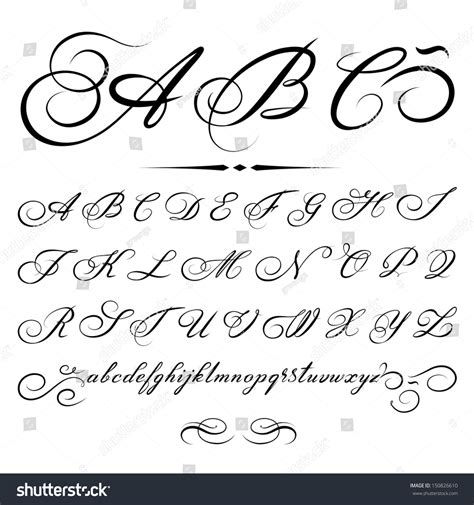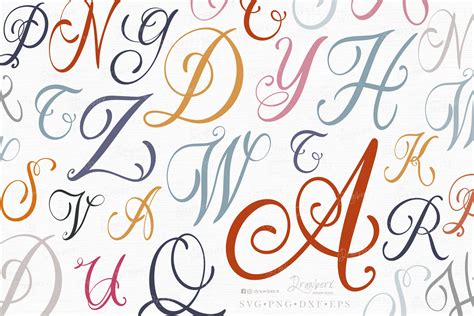
Embarking on a journey to master the art of handwriting can be both rewarding and enjoyable. One of the most elegant and timeless styles is the Fancy Cursive Alphabet. This script is not just about writing; it's about expressing oneself with grace and sophistication. Whether you're a calligraphy enthusiast or someone looking to add a touch of elegance to your everyday writing, learning the Fancy Cursive Alphabet can be a fulfilling experience.
Understanding the Fancy Cursive Alphabet
The Fancy Cursive Alphabet is characterized by its flowing, interconnected letters and decorative flourishes. Unlike standard cursive, which is often taught in schools for its practicality, the Fancy Cursive Alphabet is more about aesthetics and personal expression. It combines elements of traditional cursive with artistic embellishments, making it a favorite among calligraphers and artists.
To get started with the Fancy Cursive Alphabet, it's essential to understand its key features:
• Flowing Lines: The letters are connected in a smooth, continuous motion, giving the writing a fluid appearance.
• Decorative Elements: Flourishes and loops are added to enhance the visual appeal of the script.
• Varied Letterforms: Each letter can have multiple variations, allowing for a high degree of personalization.
Tools and Materials for Fancy Cursive Alphabet
Before diving into the Fancy Cursive Alphabet, gather the right tools and materials. Having the correct equipment can significantly enhance your learning experience and the quality of your writing.
Here are some essential tools and materials:
• Pens: Use a fountain pen, dip pen, or a calligraphy pen with a flexible nib for better control and flow.
• Ink: Choose high-quality ink that flows smoothly and dries quickly to prevent smudging.
• Paper: Opt for smooth, high-quality paper that allows the ink to glide effortlessly.
• Guidelines: Use a ruler or a lightbox to create guidelines for consistent letter height and spacing.
Basic Techniques for Fancy Cursive Alphabet
Mastering the Fancy Cursive Alphabet requires practice and patience. Start with the basics and gradually incorporate more complex elements as you become more comfortable.
Here are some fundamental techniques to get you started:
• Hold the Pen Correctly: Hold the pen at a 45-degree angle to the paper for better control and flow.
• Practice Basic Strokes: Begin with simple strokes like lines, curves, and loops to build muscle memory.
• Connect Letters: Focus on connecting letters smoothly, ensuring that each transition is fluid and natural.
• Add Flourishes: Experiment with different flourishes and embellishments to add a personal touch to your writing.
Here is a table to help you understand the basic strokes and their applications in the Fancy Cursive Alphabet:
Stroke Type Description Application
Upstroke A smooth, upward movement Used in letters like 'h', 'k', and 'l'
Downstroke A smooth, downward movement Used in letters like 'd', 'g', and 'q'
Curve A smooth, rounded movement Used in letters like 'c', 'o', and 's'
Loop A circular movement that returns to the starting point Used in letters like 'b', 'p', and 'r'
📝 Note: Practice each stroke repeatedly until you feel comfortable with the motion. This will help you build a strong foundation for the Fancy Cursive Alphabet.
Learning the Fancy Cursive Alphabet
Once you have mastered the basic techniques, it's time to learn the individual letters of the Fancy Cursive Alphabet. Each letter has its unique form and can be customized with various flourishes.
Here are some tips for learning the Fancy Cursive Alphabet:
• Start with Uppercase Letters: Begin with uppercase letters, as they often have more distinct and decorative forms.
• Practice Lowercase Letters: Move on to lowercase letters, focusing on their connection to uppercase letters.
• Combine Letters: Practice writing words and phrases to get a feel for how the letters flow together.
• Experiment with Flourishes: Add your personal touch by experimenting with different flourishes and embellishments.
Here is an example of how to write the letter 'A' in the Fancy Cursive Alphabet:
Fancy Cursive Alphabet A
📝 Note: Remember that practice is key. Spend time each day practicing the letters and experimenting with different styles.
Advanced Techniques for Fancy Cursive Alphabet
As you become more proficient in the Fancy Cursive Alphabet, you can explore advanced techniques to enhance your writing further. These techniques involve more complex strokes and flourishes, adding depth and elegance to your script.
Here are some advanced techniques to consider:
• Shading and Texturing: Use different ink thicknesses and shading techniques to create depth and texture in your writing.